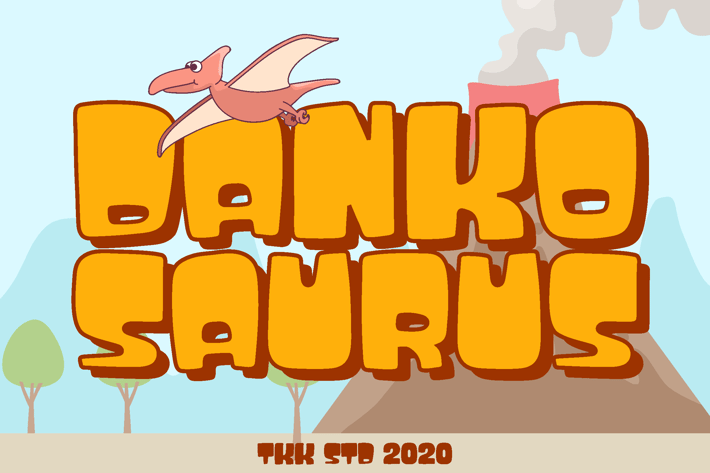
Dankosaurus - Kids Gaming Font
Dankosaurus - Bold Dino Letters for Kids Games, Toys, Party Cards & Storybooks
Dankosaurus is a chunky, rounded kids’ display typeface that brings a playful dinosaur energy to every project. Designed with soft edges, bold proportions, and wide counters, this font captures the essence of fun and friendly prehistoric adventure.
Its geometric structure and expressive weight are ideal for standout children’s visuals—ranging from YouTube intros and birthday invites to game UIs and dinosaur-themed classroom materials. Dankosaurus blends approachability with boldness, making it the go-to font for projects where joy, clarity, and imagination meet.
From roaring birthday parties and dino-themed merch to educational posters and app buttons, Dankosaurus helps content creators craft designs that are vibrant, kid-focused, and emotionally engaging. Whether you're designing a shirt that says "Tiny Rex" or building a mobile app UI for preschoolers, this font fuels attention and excitement without sacrificing readability.
Perfect for children’s books, printable worksheets, packaging, party banners, or game overlays, Dankosaurus brings a big personality that keeps your design both adorable and unforgettable.
Key Features :
Rounded & Friendly
- Soft, chunky letterforms with even curves for warmth and cuteness
- Balanced shapes ensure readability at small or large sizes
Educational & Versatile
- Great for classroom posters, kids’ worksheets, and printable rewards
- Also ideal for branding preschool games, educational apps, and YouTube thumbnails
* Fun-Forward Design
- Dino-inspired visual cues create joyful storytelling for every letter
- Makes birthday cards, storybooks, and t-shirt graphics instantly charming